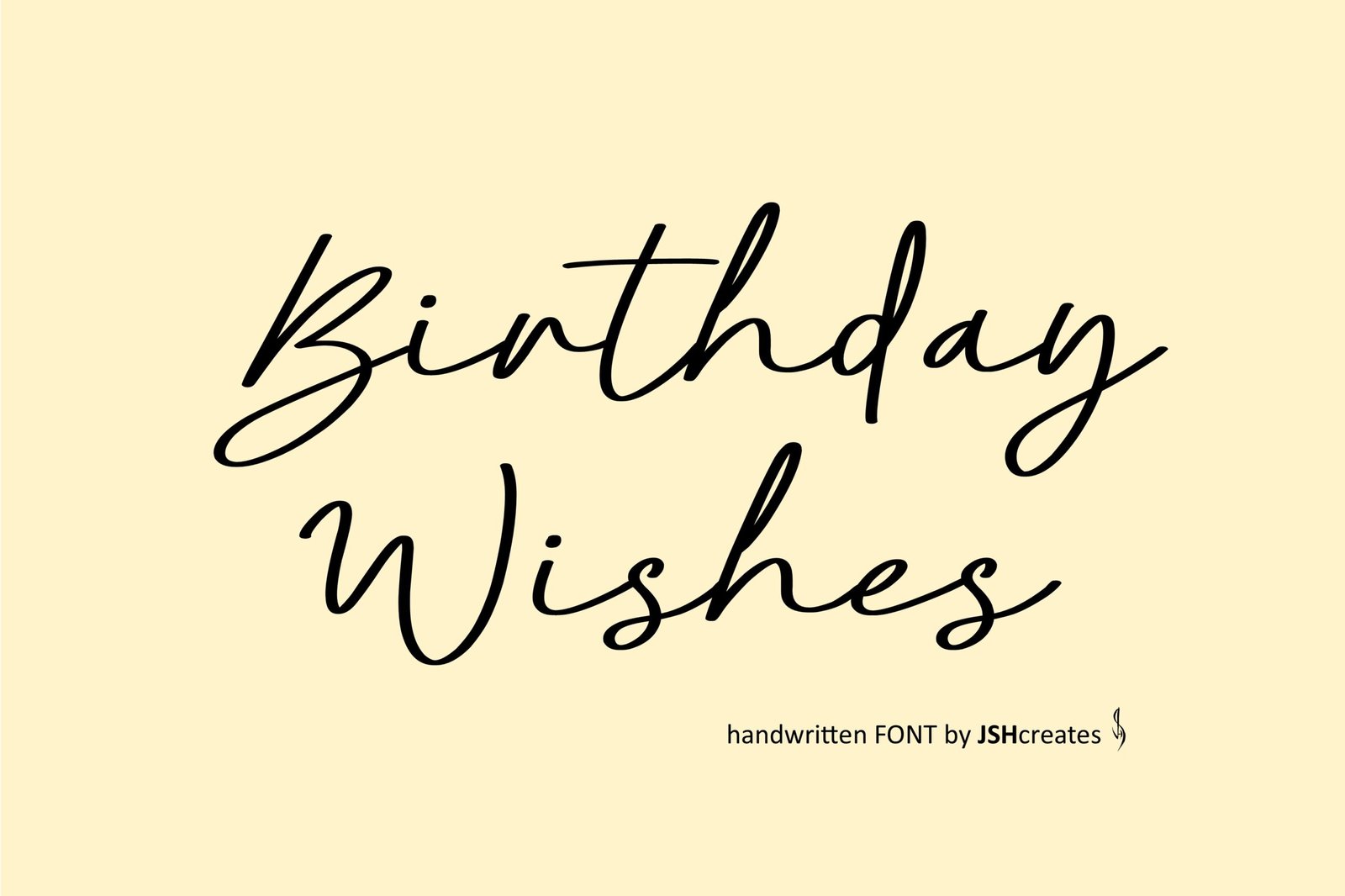
Birthday Wishes Font
Handwritten script font. “Birthday Wishes”. Perfect for advertising and display purposes, including banners, book covers, shirts, posters, logos and much more!
Font includes all upper and lowercase letters, numbers, characters and punctuation.